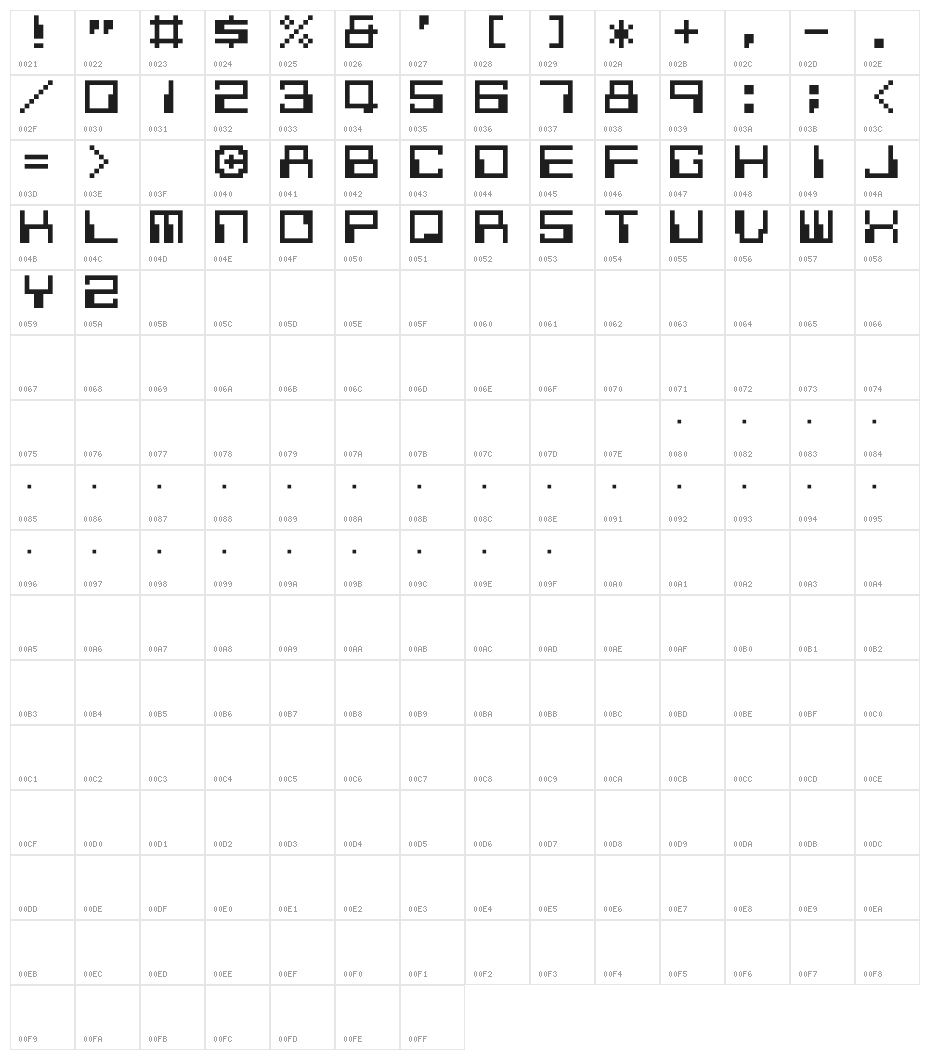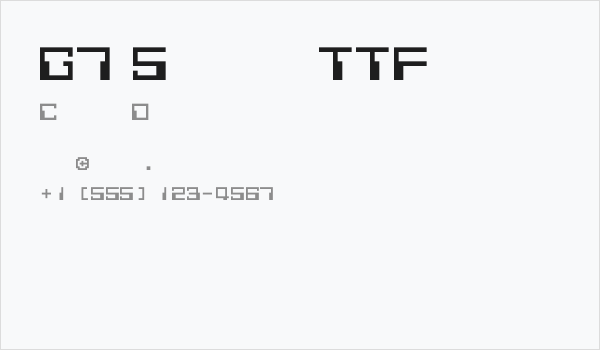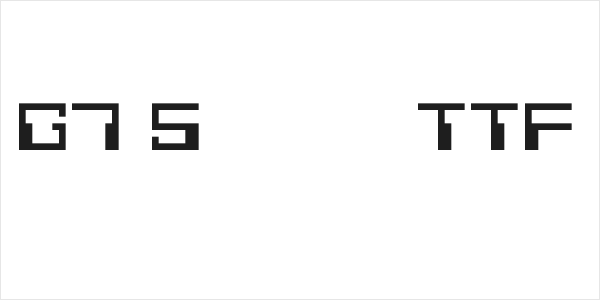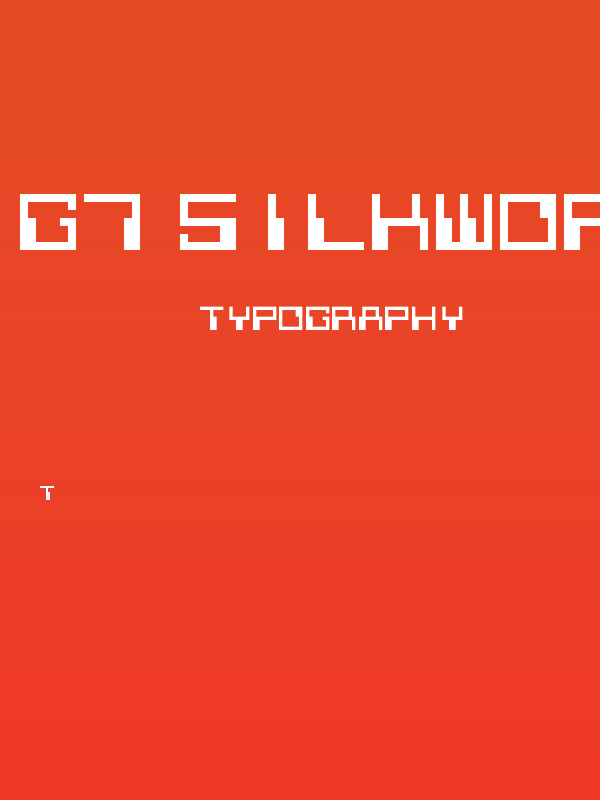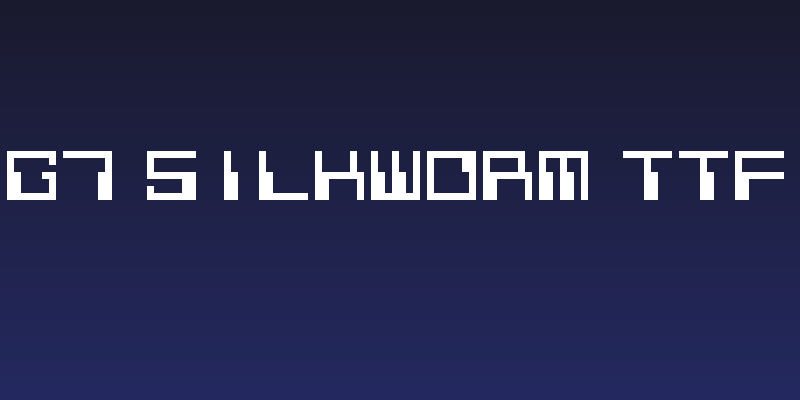
G7 Silkworm TTF Font
✎ Pixel
| Progetti proposti | Ideal for video game design, retro-themed posters, digital art projects, and technology-related branding. |